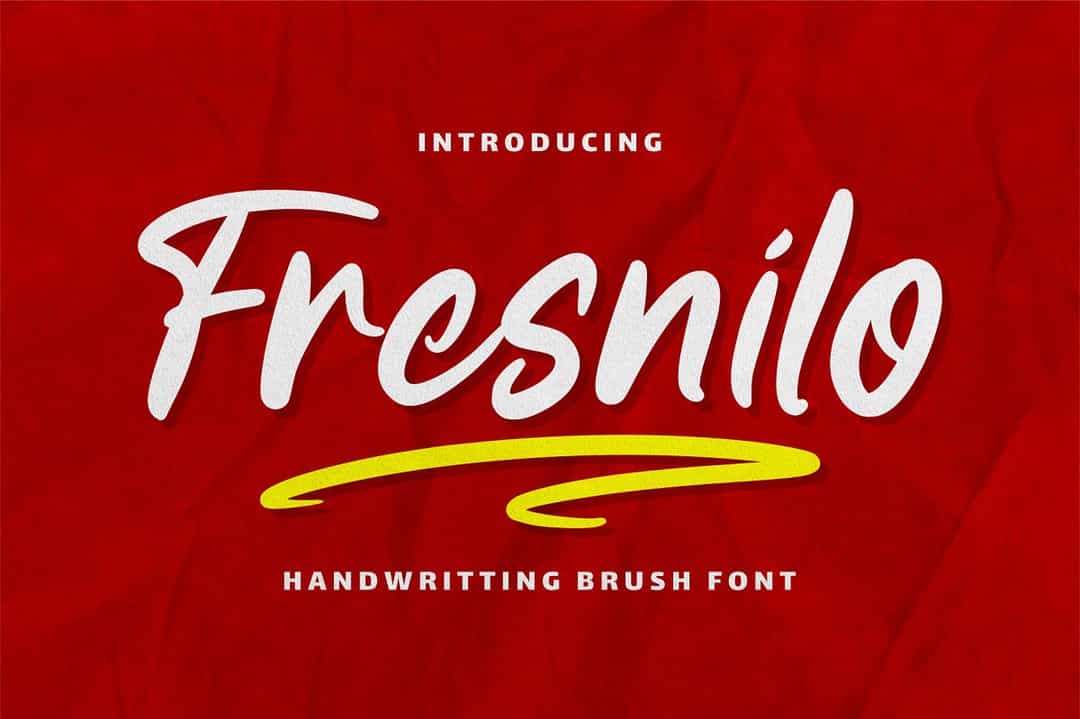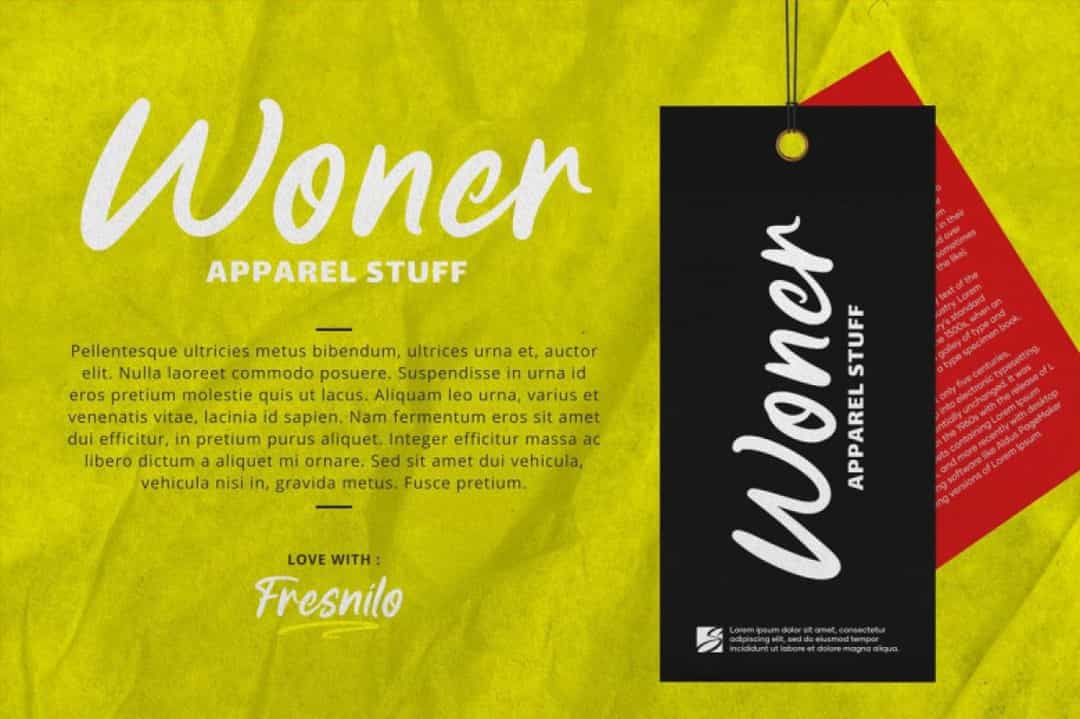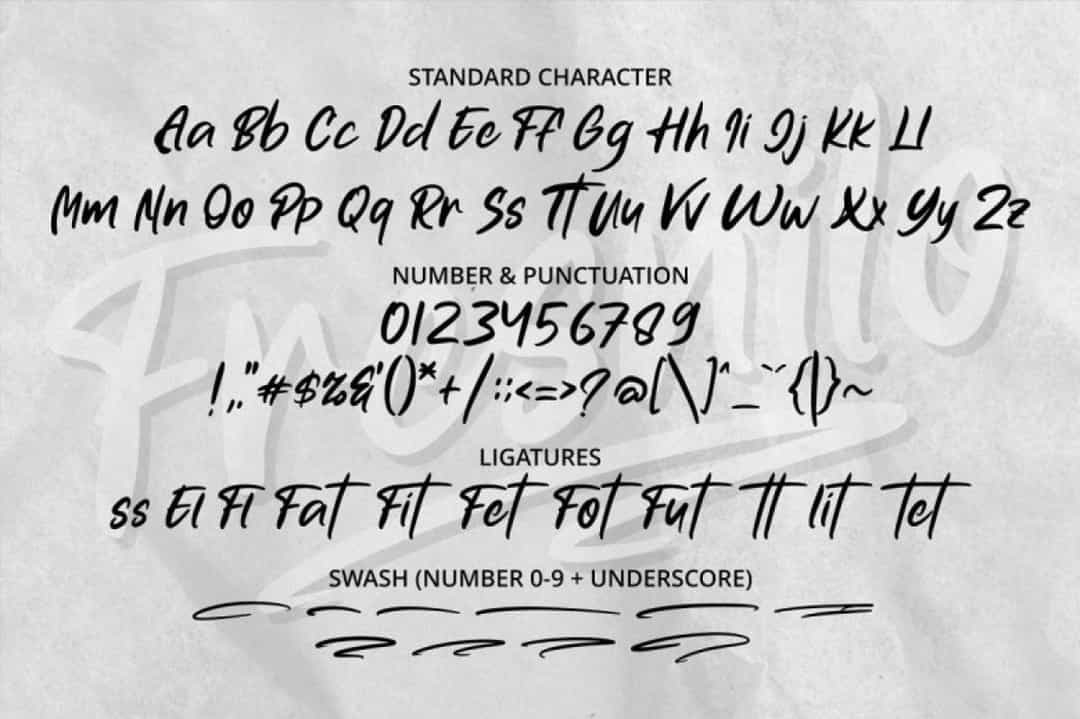
Fresnilo is a simple yet thick handwritten font. The font can be described as sturdy yet confident and lively; adding nostalgia to any project. Fresnilois makes an excellent choice for posters, affiches logos, T-shirt, magazine prints attractive typographic designs as well as other design projects.